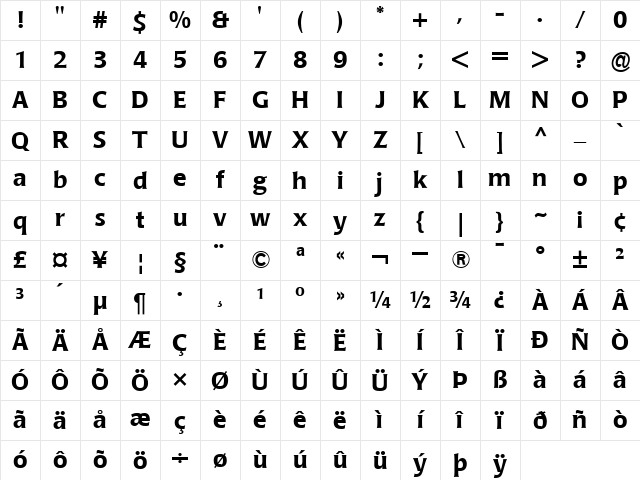
Poppl-Laudatio-Medium Medium
Complete Poppl-Laudatio-Medium Medium glyph index. Displaying only characters natively supported by Poppl-Laudatio-Medium Medium font.
Design Context for Poppl-Laudatio-Medium
Poppl-Laudatio-Medium is a composed and adaptable typeface that performs quietly and consistently across a wide range of design contexts.
Pro Tip: Use Poppl-Laudatio-Medium in both headline and body roles to test its range before committing to a single application.